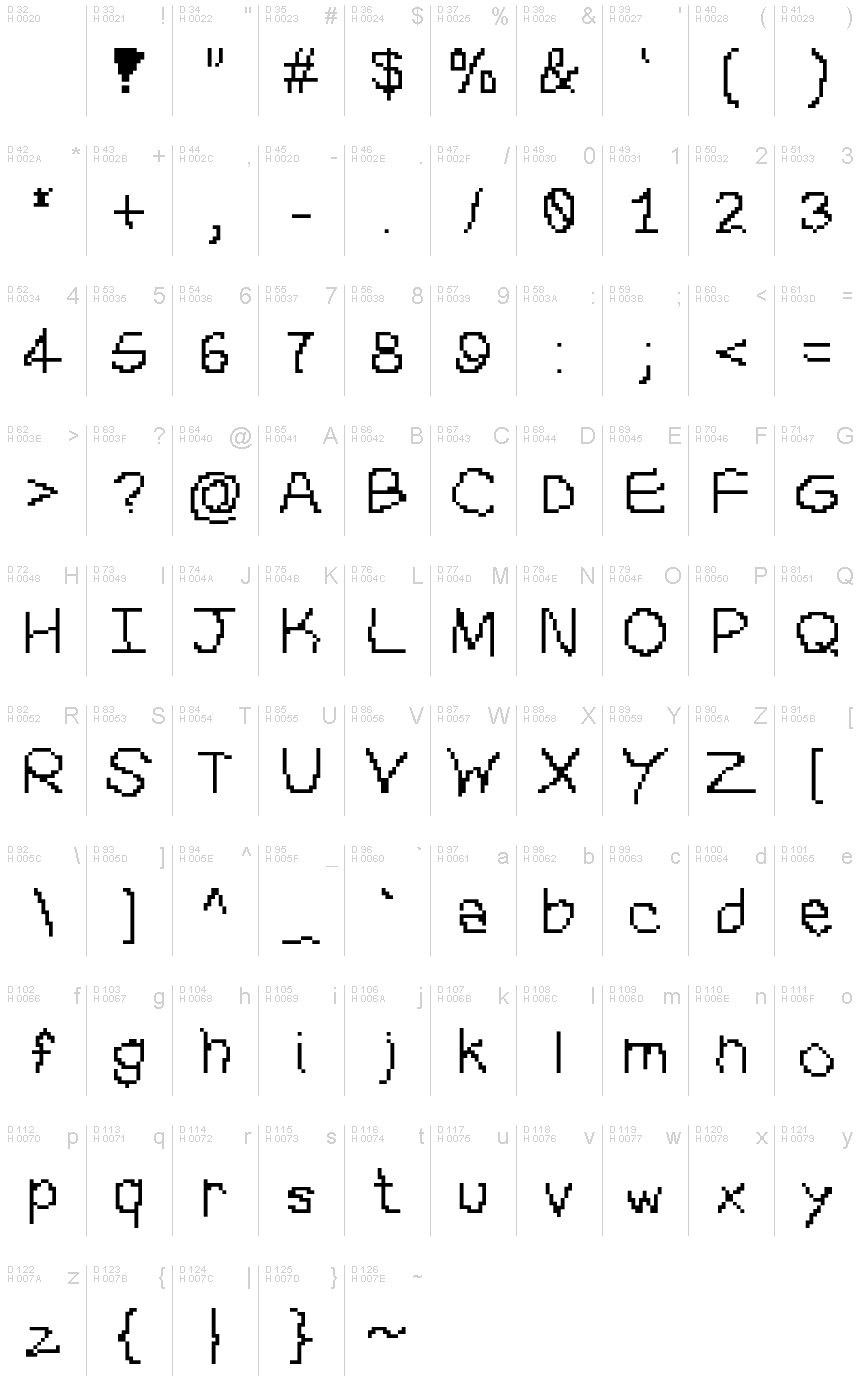
BAD
is a free font made in an hour or so by yours truly. As the name implies, it is very sz-aa-th.
FEATURES:
- Mouse-drawn style.
- More letters than just the basic English ones (some actual, professional fonts don't have this!)